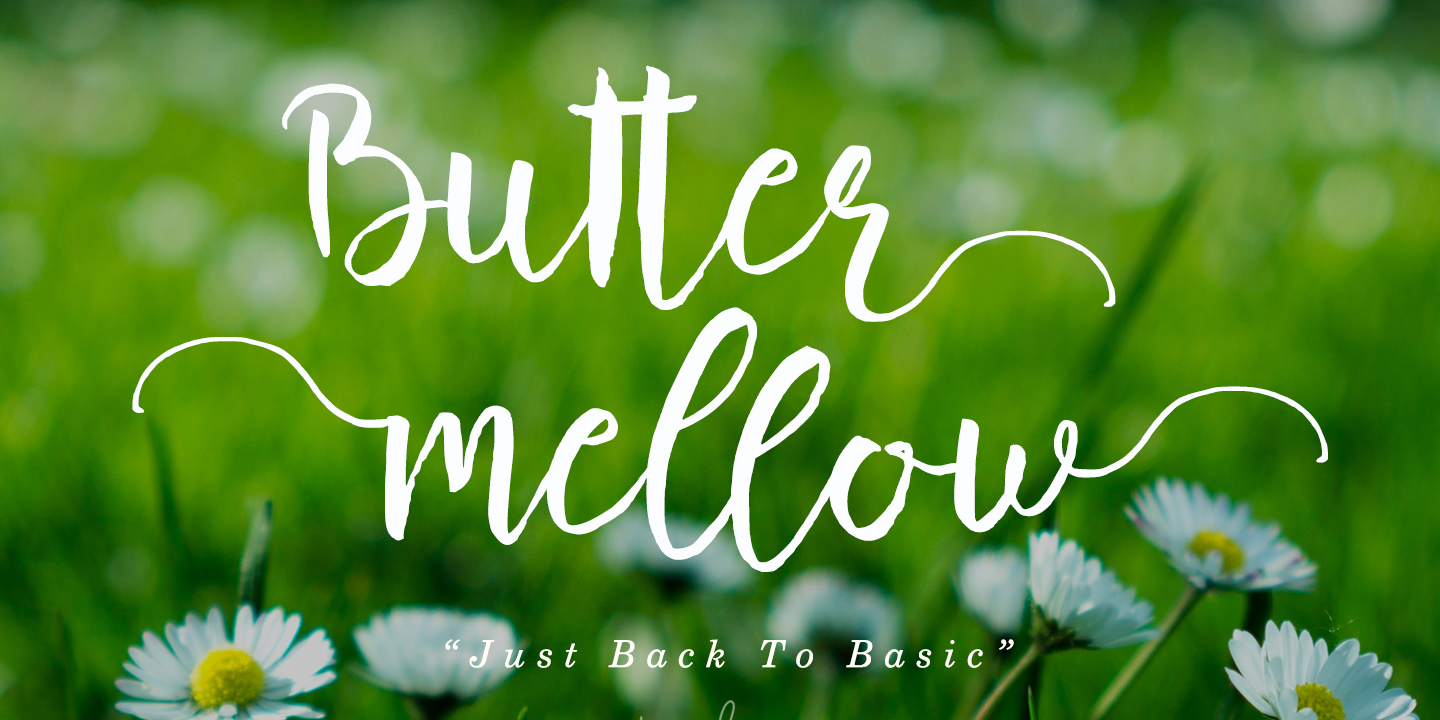
Butter Mellow Font is perfect for bakery branding, comfort food packaging, cozy cafe menus, artisan butter labels, homestyle restaurant signage, warm beverage campaigns, comfort cooking blogs, and nostalgic food advertising materials. This soothing typeface excels in applications where culinary comfort and homestyle warmth are essential.
What makes Butter Mellow Font so exciting is its comforting ability to evoke the warm, creamy richness of fresh butter and homestyle cooking through soft, rounded letterforms that embody the cozy satisfaction of comfort food and family traditions. The font features gentle character shapes with buttery textures and mellow styling that evoke images of golden toast, warm kitchens, and the simple pleasures of homemade comfort foods. Its comfort-focused design philosophy combines culinary authenticity with contemporary warmth, making it perfect for food brands seeking to convey homestyle quality, comfort satisfaction, and connection to traditional cooking communities and comfort food culture.
Butter Mellow Font belongs to the comfort food script font family, specifically designed for culinary and homestyle-themed branding applications. This typeface family emphasizes soothing visual warmth through butter-inspired styling and comfort character elements, ensuring authentic homestyle presentation across various food service and comfort cooking-focused design projects.
Embrace culinary comfort with Butter Mellow Font Free Download, a typeface that embodies the soothing warmth of homestyle cooking and comfort food traditions. This gentle font delivers exceptional coziness for culinary applications, featuring comprehensive character sets with cooking symbols and comfort punctuation marks that capture the essence of family recipes and kitchen warmth. Its smoothly crafted letterforms maintain excellent readability while preserving the authentic comfort aesthetic across various sizes, from small ingredient labels to large bakery storefront displays. The font's distinctive homestyle personality makes it invaluable for designers creating food brands, comfort cooking materials, and culinary content where conveying warmth, satisfaction, and homestyle authenticity is crucial for connecting with audiences seeking genuine comfort food experiences and traditional cooking heritage.